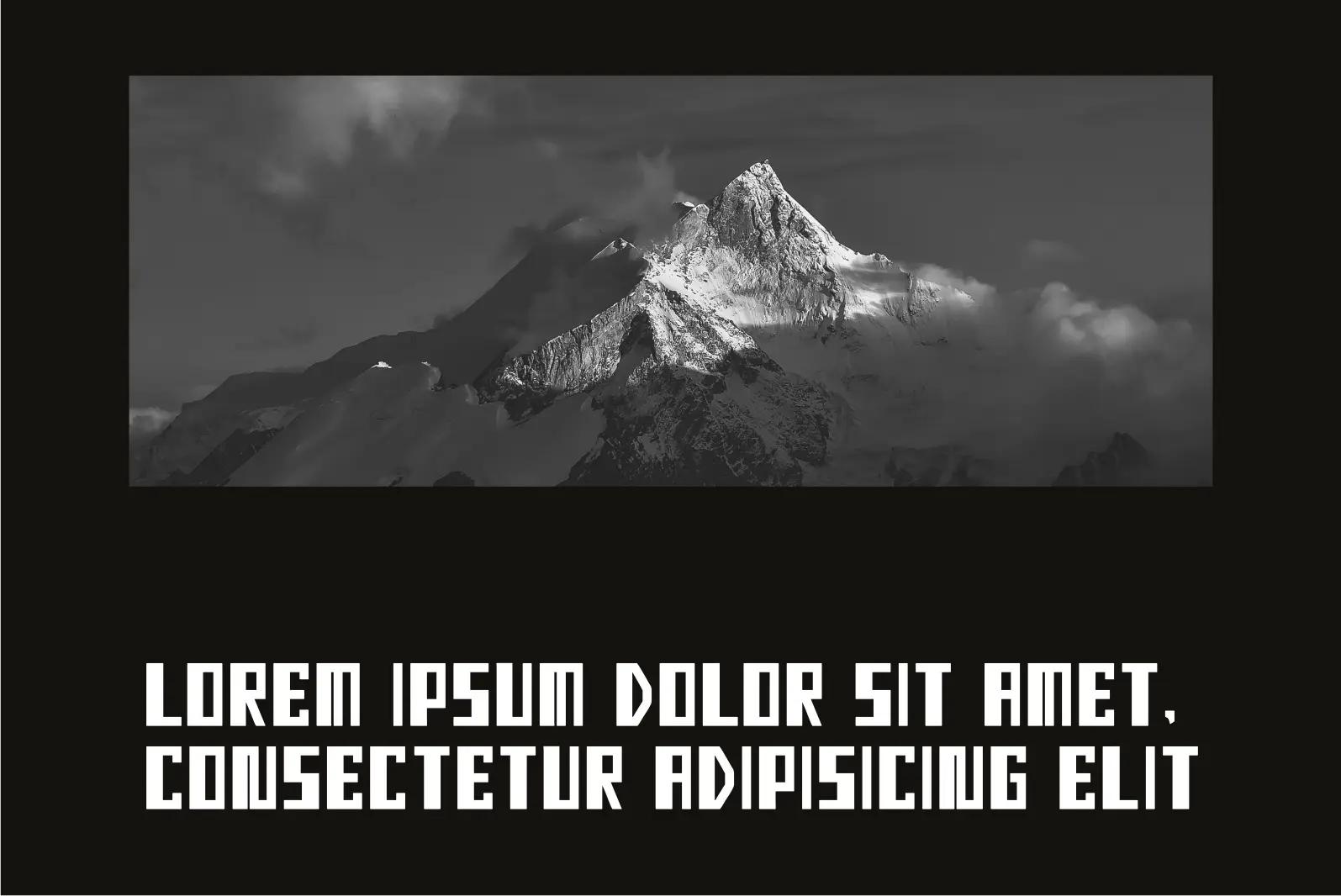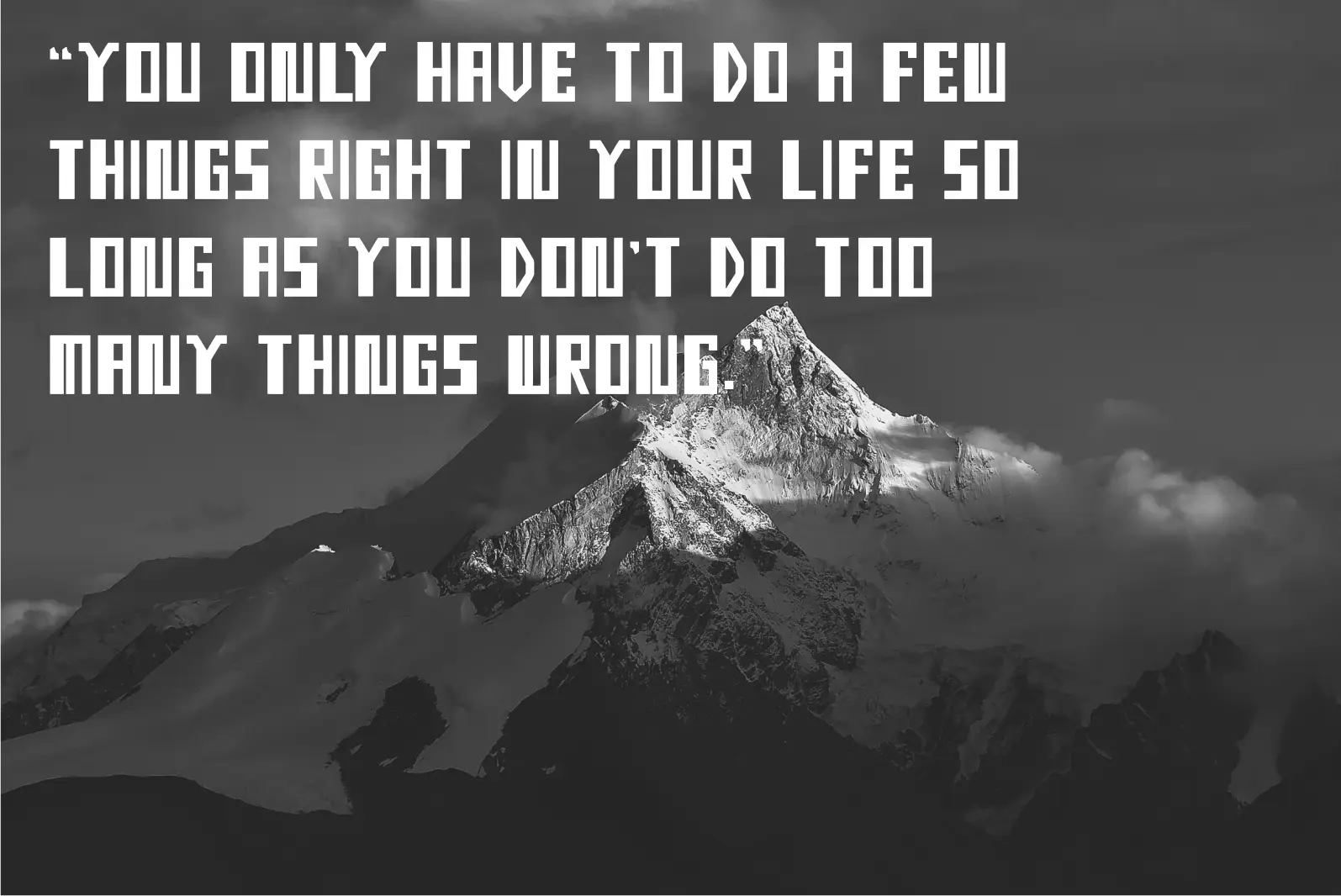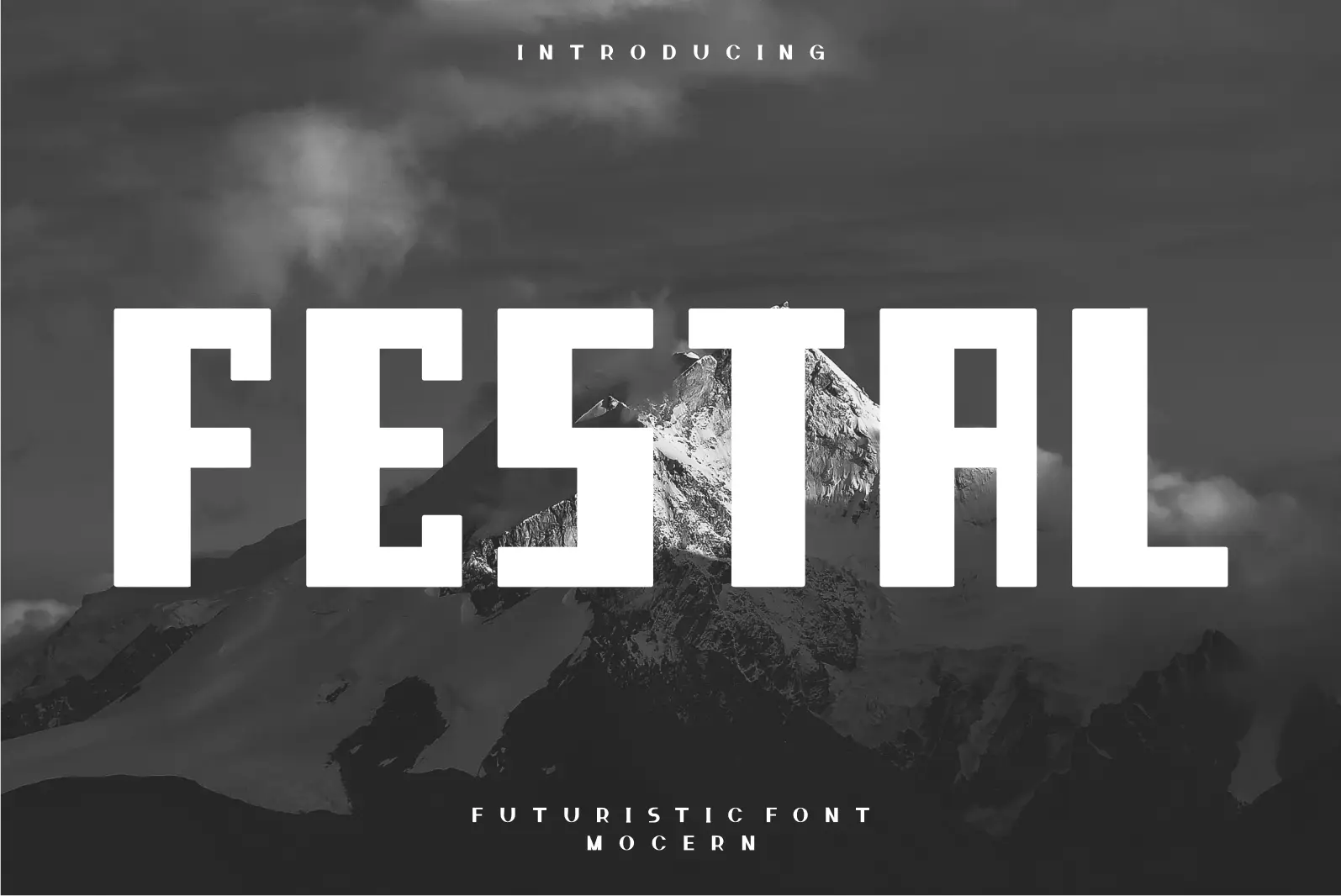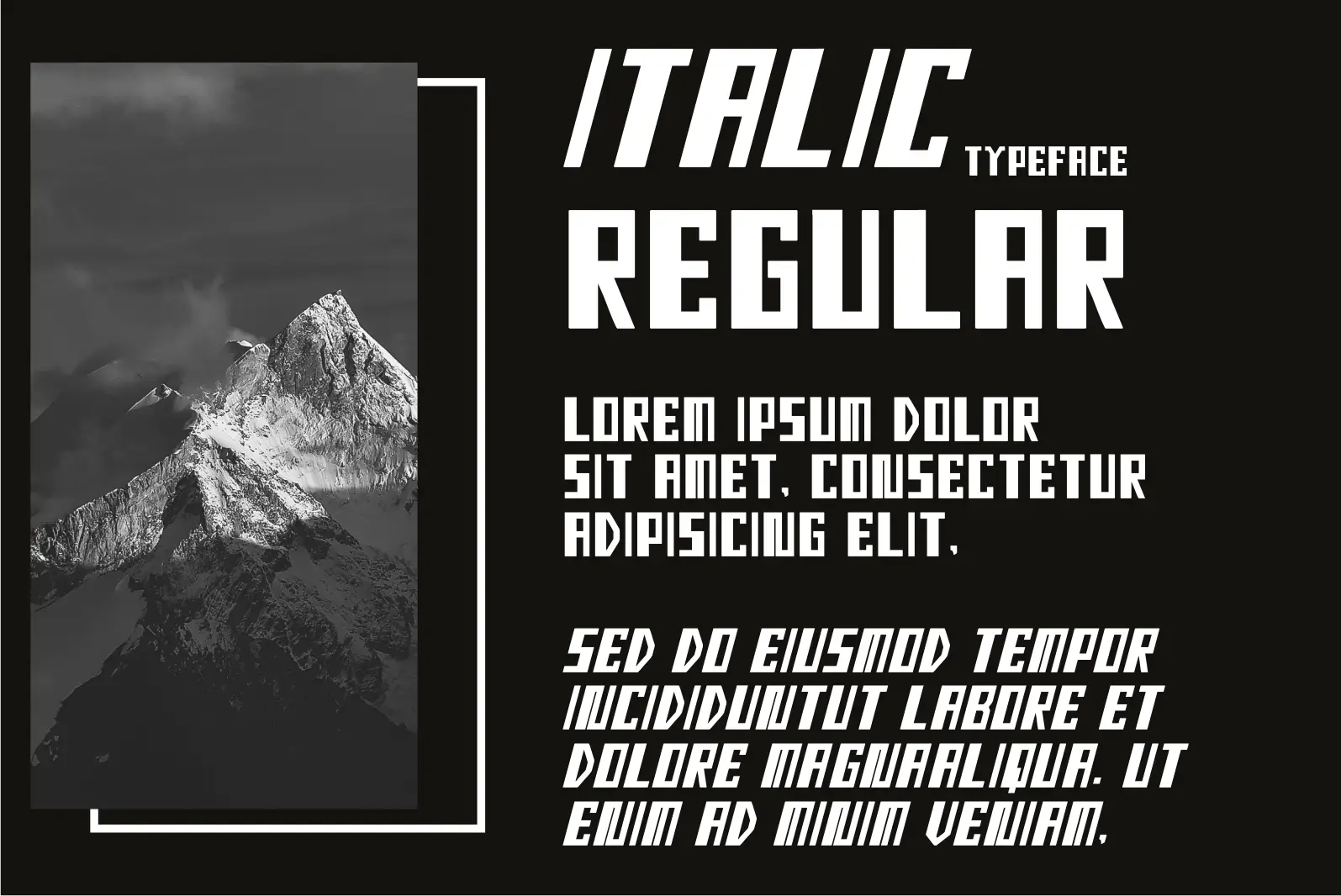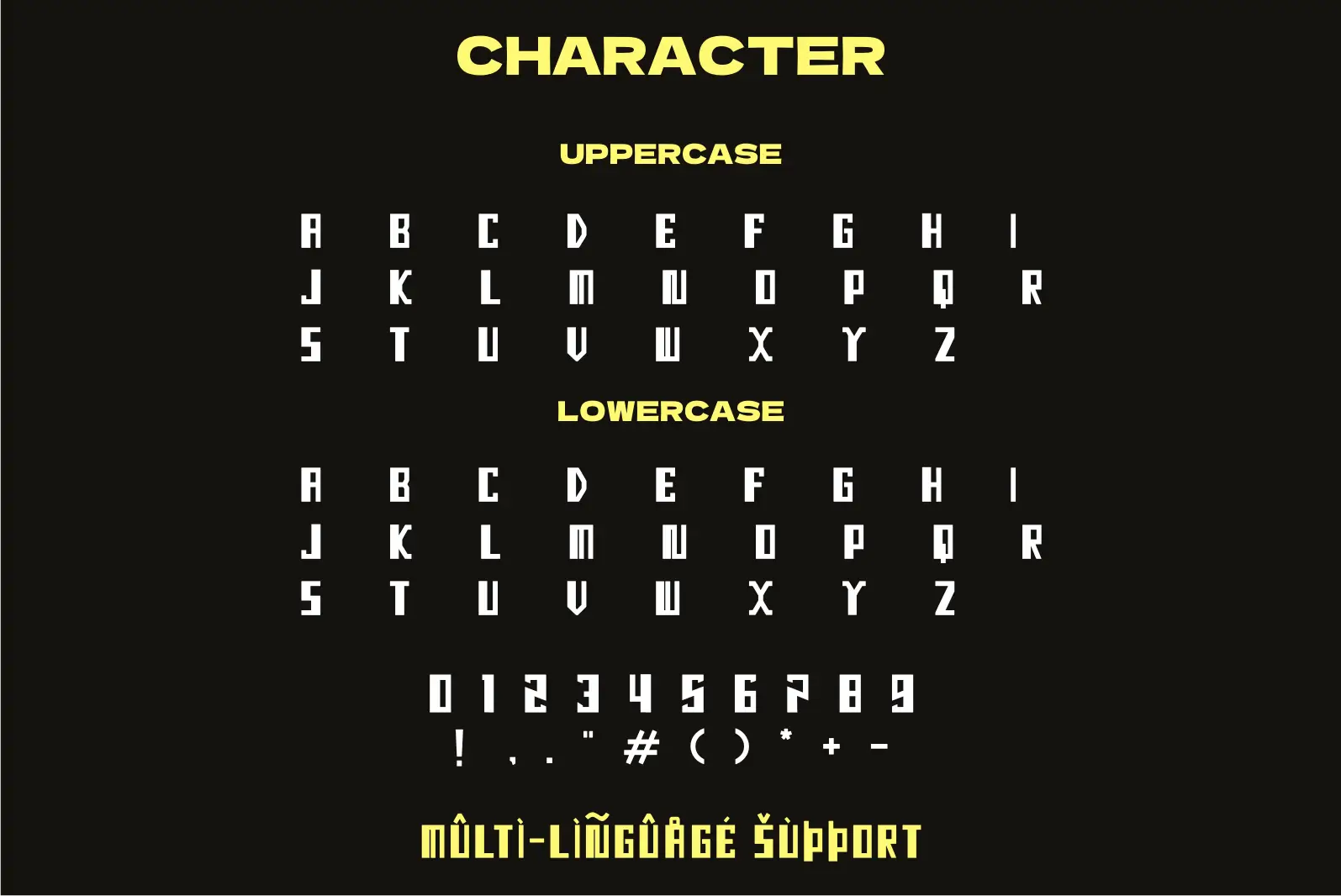
The Festal Display Font is a striking typeface designed to capture attention and convey a sense of celebration. With its unique character shapes and bold strokes, this font is perfect for a variety of creative projects.
- Stylish display font with a festive flair
- Multiple weights available for versatility
- Uppercase and lowercase letters included
- Special characters and punctuation marks
- Weight: Regular, Bold
Ideal for branding, logos, posters, and any project that requires a bold, eye-catching font. Use it to create memorable headlines or promotional materials that stand out.